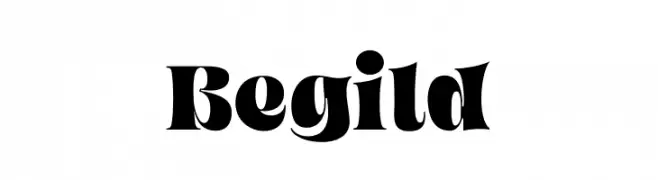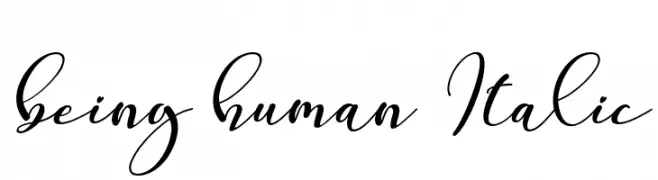
A bold, geometric font with sharp, angular characters and a futuristic style.
A bold, geometric font with angular, blocky letterforms.
A classic serif font with elegant, refined strokes and pronounced serifs.
A novelty font using firearm silhouettes as letterforms.
A bold, flame-inspired font with sharp, angular strokes and dynamic energy.
An elegant and flowing script font with ornate uppercase and smooth lowercase letters.
A whimsical and elegant script font with playful loops and flourishes.
A bold, geometric font with sharp angles and circular forms.
A decorative, thorny font with gothic influences and bold, intricate details.
A playful, 3D hand-drawn font with bold, rounded characters and sketch-like texture.
Elegant, handwritten script font.
Hand-drawn floral and botanical decorative elements.
A decorative collection of floral and geometric symbols for artistic embellishments.
A bold, playful font with exaggerated curves and whimsical flair.
A bold, angular font with a dynamic, modern style.
A bold, dynamic font with a 3D effect and angular strokes.
A bold, angular font with a dynamic 3D effect and slanted orientation.
A bold, geometric outline font with a modern and futuristic style.
A decorative, abstract font with circular, futuristic glyphs.
A bold, geometric font with a modern, industrial style.
An artistic and highly decorative font with intricate illustrations in each character.
A whimsical, heart-themed decorative font with playful curves.
Ornamental frame-based decorative font with intricate flourishes.
A bold, distressed font with a vintage industrial style.
A bold, decorative font with a playful polka dot pattern.
A bold, halftone-patterned font with a retro, disco-inspired style.